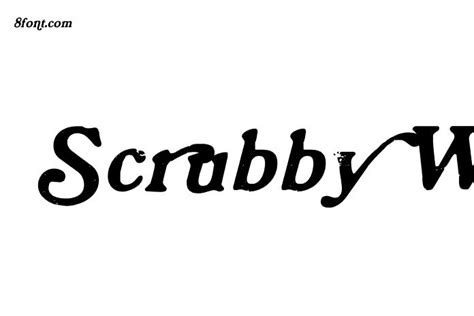
Scrubby Font Nostalgic Typeface with Swashes from the '70s
Web 1 fonts from $11.95 family. Scrubby is a grunge font published by typodermic fonts inc. Web scrubby regular is the perfect font for all your fun designs. Scrubby w00 regular is a display type font that can be used on any device such as pc, mac, linux, ios and android. Welcome to the nostalgic ’70s with scrubby, the typeface that will take you on a trip down memory lane! Web scrubby w00 regular download is available free from 8font.com. You can also visit the author website, clicking here:. The scrubby regular font was designed by ray larabie. If you’re looking for a font that exudes softness, look no further than scrubby. The author works at company ray larabie.
If you’re looking for a font that exudes softness, look no further than scrubby. This typeface is inspired by the. Web scrubby w00 regular download is available free from 8font.com. Web welcome to the nostalgic ’70s with scrubby, the typeface that will take you on a trip down memory lane! The author works at company ray larabie. You can also visit the author website, clicking here:. Scrubby w00 regular is a display type font that can be used on any device such as pc, mac, linux, ios and android. If you’re looking for a font that exudes softness, look no further than scrubby. Welcome to the nostalgic ’70s with scrubby, the typeface that will take you on a trip down memory lane! Scrubby is a grunge font published by typodermic fonts inc. The scrubby regular font was designed by ray larabie.